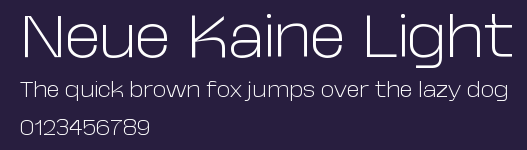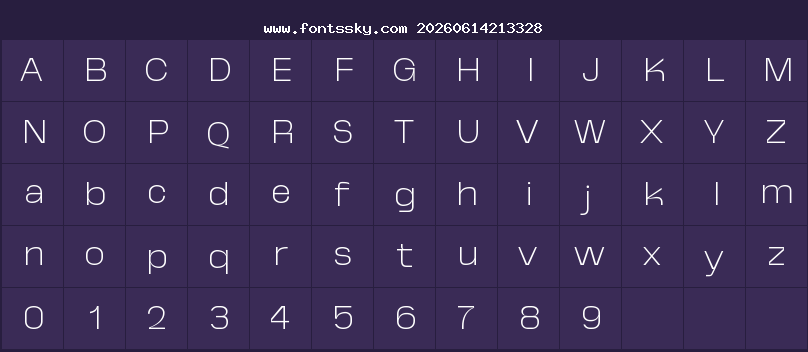
Neue Kaine Light Preview
• Font Name: Neue Kaine Light
• Full Font Name: Neue Kaine Light
About Neue Kaine Light.ttf
Neue Kaine Light.ttf is a modern, elegant sans-serif font designed for ultimate readability and visual harmony. Perfect for branding, headlines, web design, and print materials.